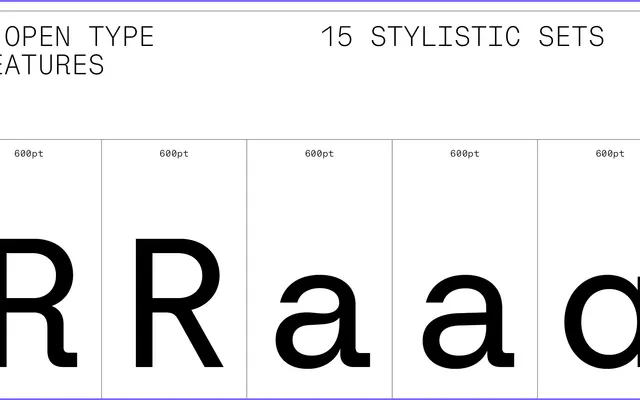
Algorytm Mono specimen from Interval Type
A monospaced geometric sans in six weights, drawn from early American gothic sources and extended with Cyrillic coverage and a rich set of stylistic alternates.
Part of the broader six-family Algorytm collection, the Mono variant applies a fixed-width grid to letterforms rooted in nineteenth-century American gothics such as Times Gothic and Inland Gothic. Six weights from Extralight to Bold are accompanied by alternates for 'a', 'g', 'y', 'u', 'G' and 'R', plus special characters including circled numbers and geometric parentheses. Latin Extended and Cyrillic scripts are both covered, with Cyrillic-specific alternates for К and Ж.
A monospaced sans-serif with geometric construction, inspired by early American gothics. The fixed-width constraint places it firmly in the mono category, with a geometric sans underpinning.